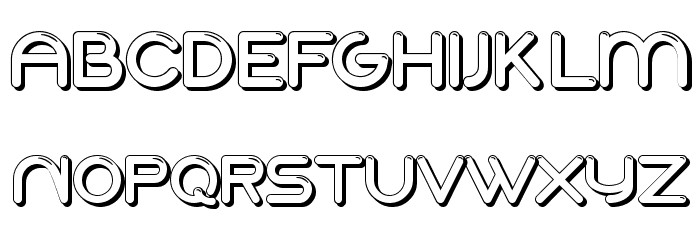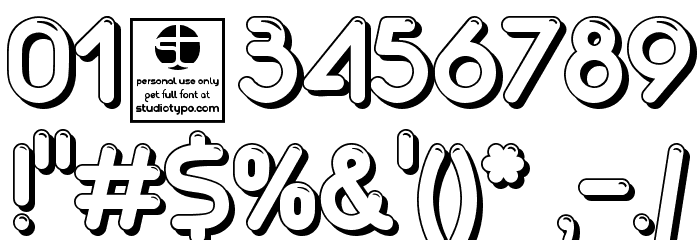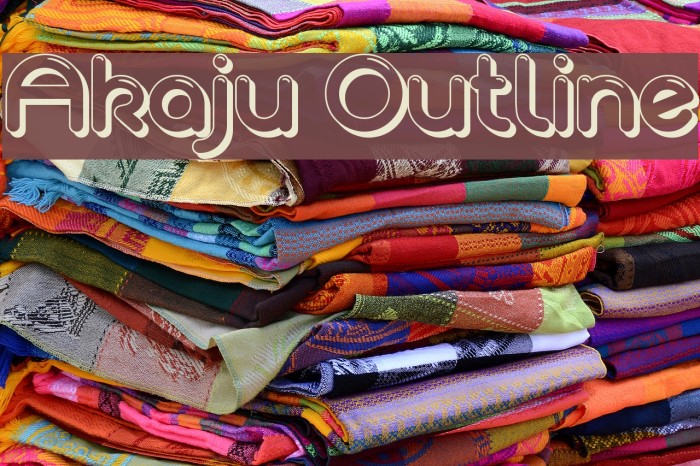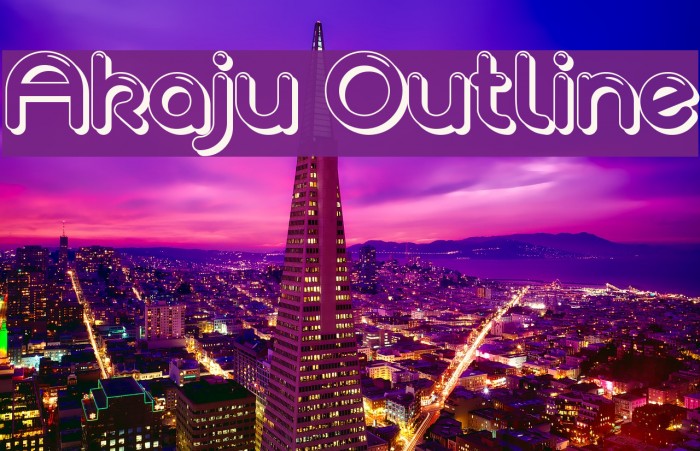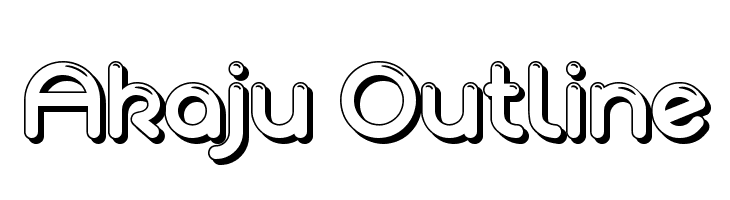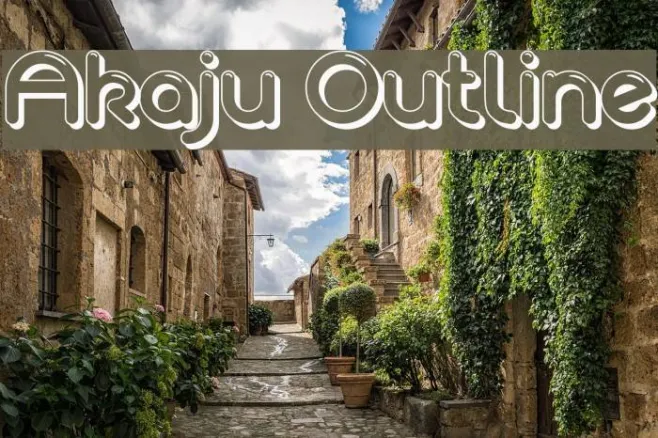
Akaju Outline Font
This font features a bold, outlined style with a modern and playful aesthetic. The characters are uppercase and lowercase letters, numbers, and a variety of special symbols. Each character is defined by a thick, consistent outline that gives it a three-dimensional appearance. The design is clean and geometric, with rounded edges that soften the overall look. This font is ideal for projects that require a fun and engaging visual impact, such as children's books, posters, or branding materials. The spacing between characters is normal, allowing for easy readability while maintaining its distinctive style.
A bold, outlined font with a modern and playful style.
- Proposed Projects: Ideal for children's books, posters, branding materials, and playful designs.